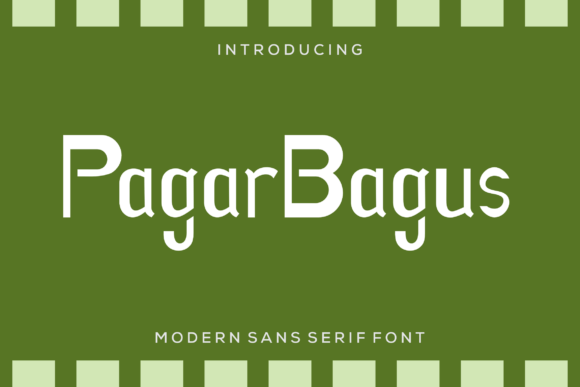
Pagar Bagus Font: Free Download Now
Pagar Bagus Font – Free Download
Introduction to Pagar Bagus Font
Pagar Bagus is a modern sans serif font, a modern display font with playful flair, ideal for attention-grabbing headlines, logos, and diverse design projects.
👤 Author alanwarstd
Versatile and readable in both digital and print, Pagar Bagus adds a dynamic touch to your message .
Key Features of Pagar Bagus Font
Why Choose Pagar Bagus Font?